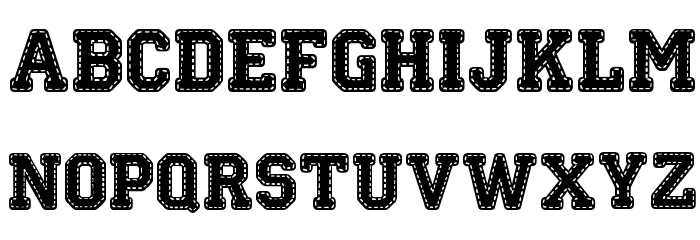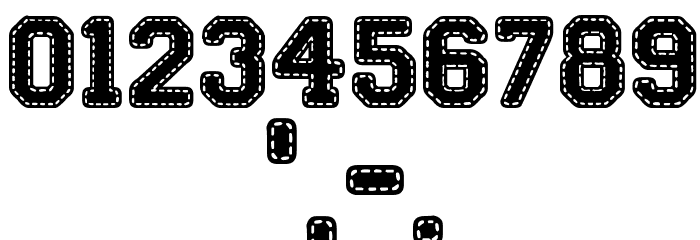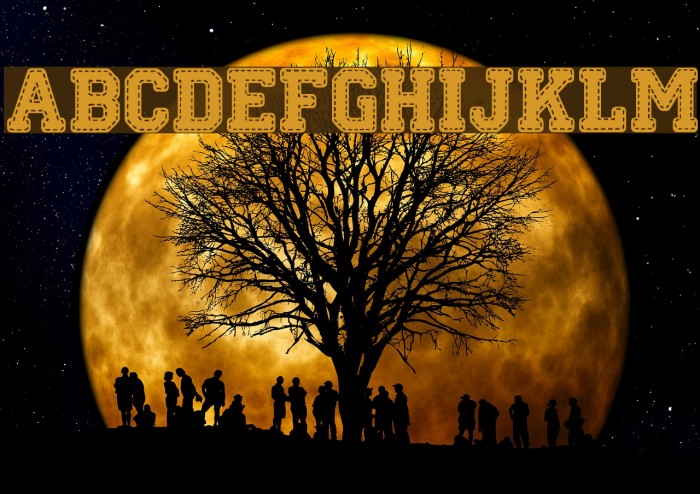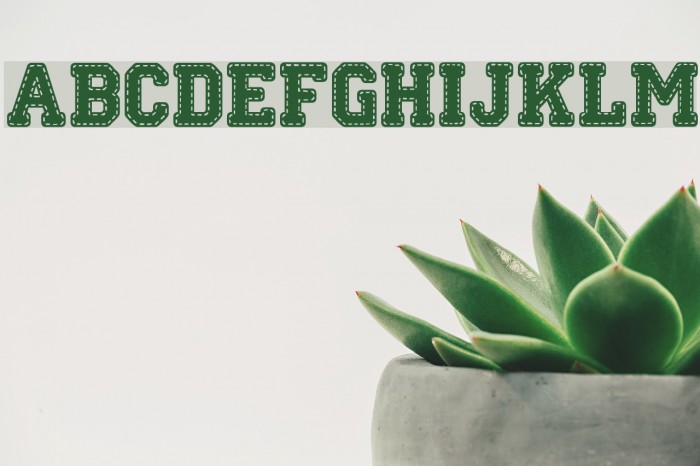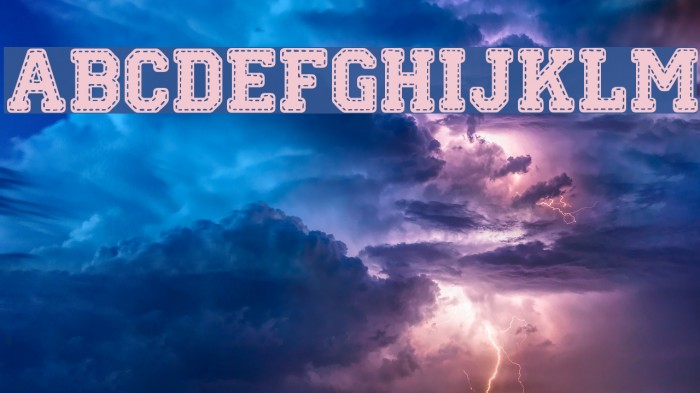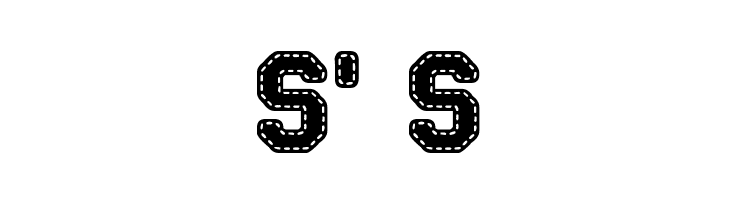
Stitch'n School Font
This font features a unique stitched design, reminiscent of embroidery or sewing patterns. Each character is outlined with a dashed line, giving it a textured and handcrafted appearance. The uppercase and lowercase letters maintain a consistent style, with rounded edges and a bold presence. The numbers and special characters follow the same stitched theme, ensuring uniformity across all glyphs. This decorative style is both playful and eye-catching, making it suitable for projects that require a touch of creativity and flair.
A decorative font with a stitched, handcrafted appearance.
- Proposed Projects: Ideal for crafting projects, children's book covers, DIY-themed branding, and any design requiring a playful, handmade touch.
- Use Case: Headlines, Logos, Craft projects